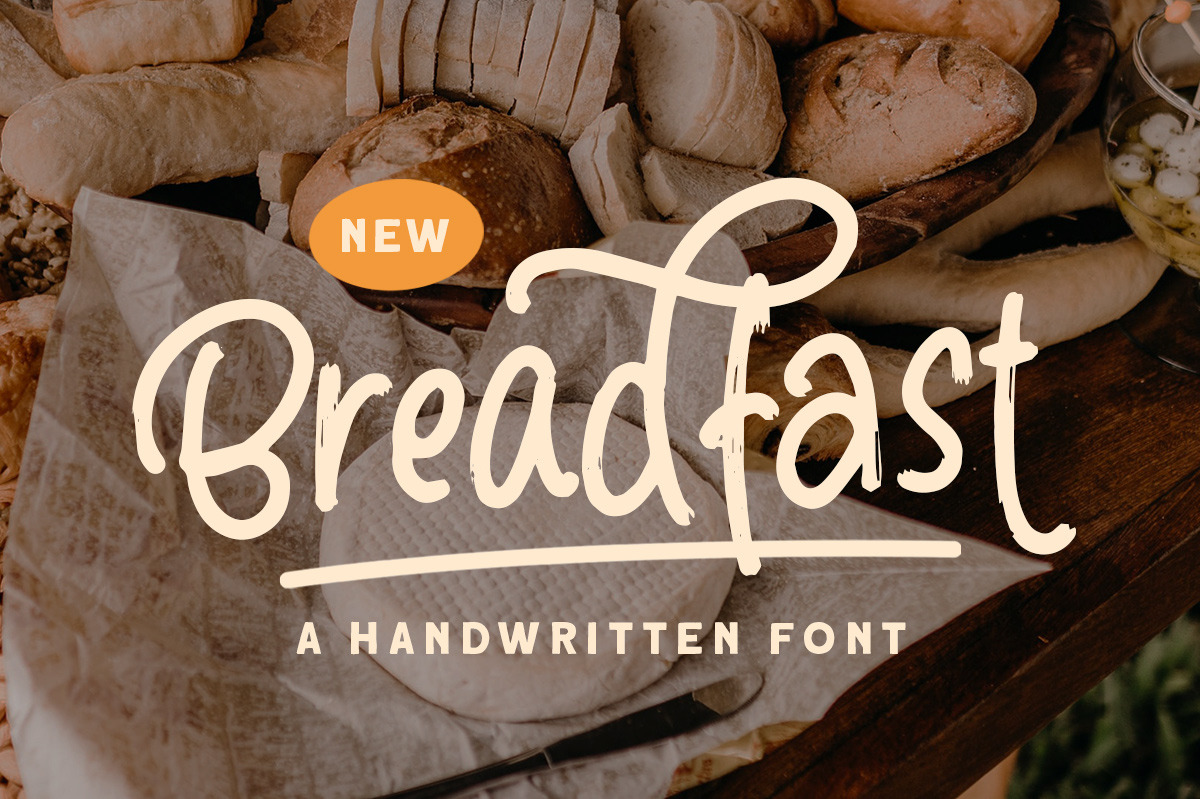
Breadfast - a Handwritten Font
Introducing Breadfast! Breadfast is a handwritten font that contain uppercase, lowercase, symbol, alternate, and also support multi language. you can use this font to make a logo for branding, quote, and playful design.